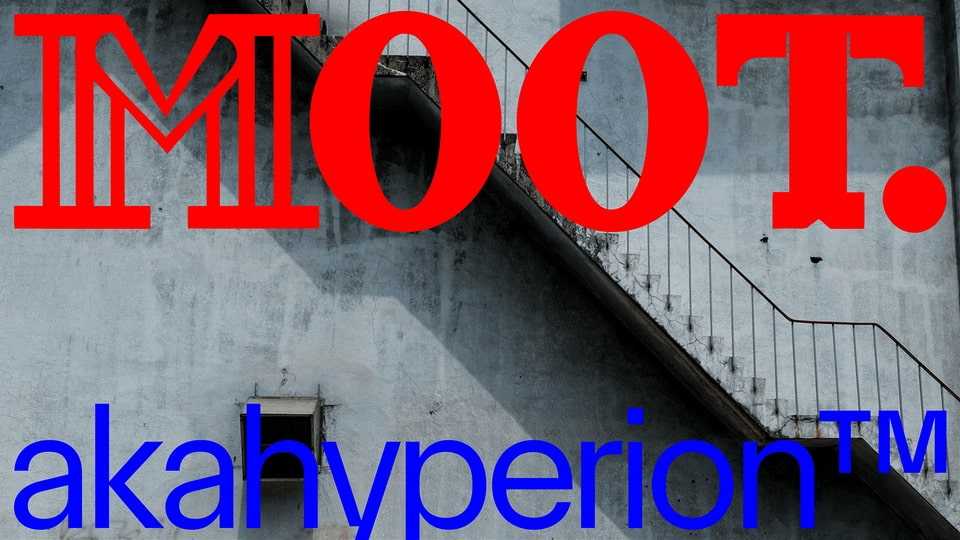
Download Moot font, an experimental display typeface born from the innovative capabilities of Google’s GenType, seamlessly blending the essence of 1950s typography with modern generative design.